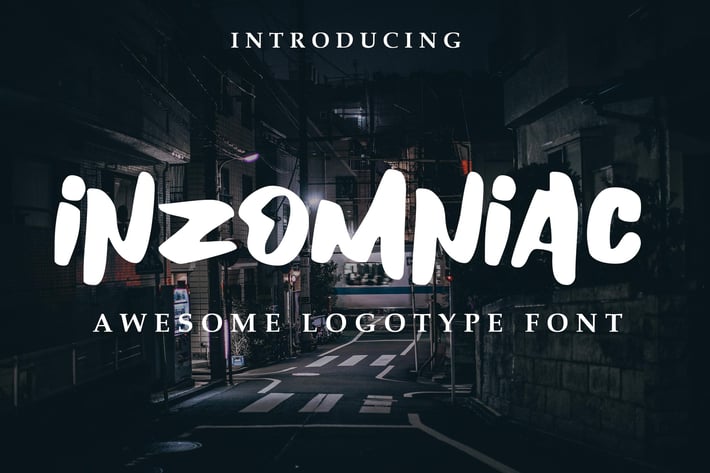
Inzomniac Logotype Font
iNZOMNIAC is AWESOME logotype font. This font is all capital, no lowercase.
But this font is very very cool for logo, for poster, for spirit quote or any adventure design. Just use it !